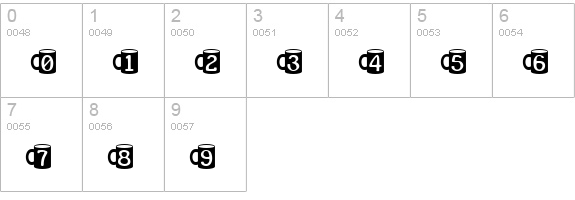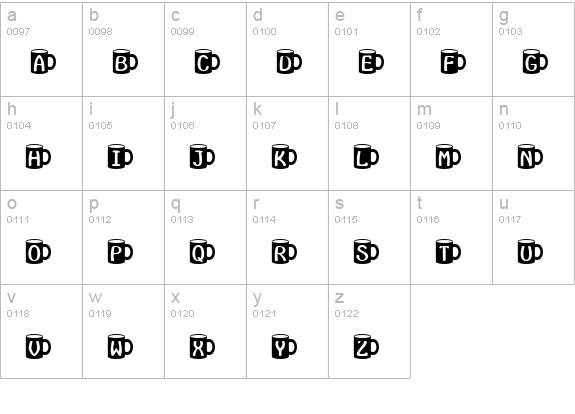
CoffeeMug Font Details
Introducing CoffeeMug font, a charming and versatile typeface perfect for adding a touch of warmth and character to your designs. Inspired by the cozy feeling of sipping on your favorite brew, CoffeeMug font exudes a sense of comfort and familiarity that will make your text stand out. This delightful font features a unique blend of playful curves and elegant lines, making it ideal for a wide range of projects, from branding to invitations to social media posts. Whether you're looking to create a friendly logo or craft a whimsical greeting card, CoffeeMug font has got you covered. What's even better? CoffeeMug font is completely free to download at FontsMarket.com, so you can start using it in your projects right away. Don't miss out on this fantastic opportunity to add a touch of warmth and charm to your designs with CoffeeMug font.